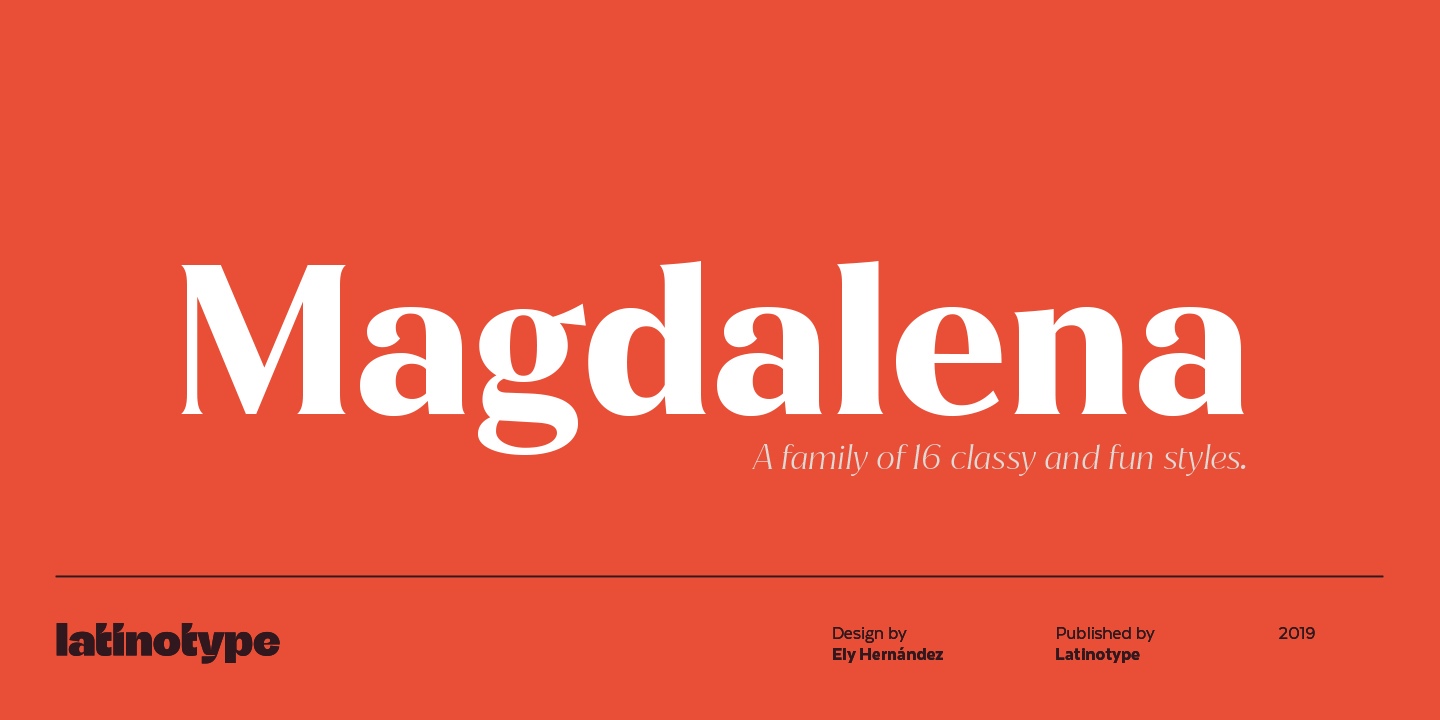
Magdalena Font
Magdalena Font is perfect for feminine empowerment campaigns, women's lifestyle magazines, elegant boutique branding, spiritual wellness materials, compassionate healthcare communications, nurturing childcare services, graceful wedding invitations, women's leadership conferences, healing arts presentations, and sophisticated feminine expression projects.
What makes Magdalena Font so exciting is its profound embodiment of feminine strength and graceful empowerment that captures the timeless beauty of feminine wisdom and the transformative power of compassionate leadership through elegantly crafted typography. This gracefully designed typeface features flowing letterforms with feminine-inspired proportions and empowerment-influenced character variations that immediately convey strength, grace, and the nurturing power of feminine energy. The font's elegant construction and empowering aesthetic create an instant sense of feminine authority and compassionate leadership, making it ideal for projects that need to communicate feminine empowerment, graceful strength, and the life-enhancing power of women's leadership to audiences seeking authentic feminine experiences and meaningful empowerment connections.
The Magdalena Font family typically includes multiple empowering weights and feminine styles, often featuring light through bold variations along with gracefully flowing italic versions and empowerment-optimized alternatives. Feminine font collections frequently offer additional empowering elements such as feminine symbols, grace ornaments, and empowerment decorations that enhance the authentic feminine aesthetic and provide designers with comprehensive tools for creating genuinely empowering and gracefully sophisticated communications.
The empowering nature of Magdalena Font makes it particularly effective for targeting demographics that value feminine leadership and women's empowerment in their personal and professional development. Women's marketers and empowerment advocates will find this font especially valuable for materials that must establish immediate feminine credibility and connect with audiences seeking authentic empowerment experiences and meaningful feminine leadership engagement.
What sets Magdalena Font apart is its ability to convey feminine strength while maintaining the grace necessary for effective empowerment and leadership communication. This balanced characteristic makes it suitable for both powerful feminine leadership applications and gentle nurturing contexts where projecting feminine authority and maintaining compassionate accessibility must work together harmoniously.
Professional designers recognize that Magdalena Font brings invaluable feminine credibility to projects across industries including women's services, empowerment coaching, wellness organizations, and feminine leadership development. Its graceful character and empowering appeal make it essential for organizations whose mission centers on advancing women's leadership, promoting feminine empowerment, and creating meaningful connections between feminine strength and compassionate influence.
The thoughtfully crafted feminine authenticity of Magdalena Font ensures consistent empowerment messaging across all women-focused communication applications while honoring the fundamental importance of feminine wisdom and graceful leadership in contemporary empowerment typography.